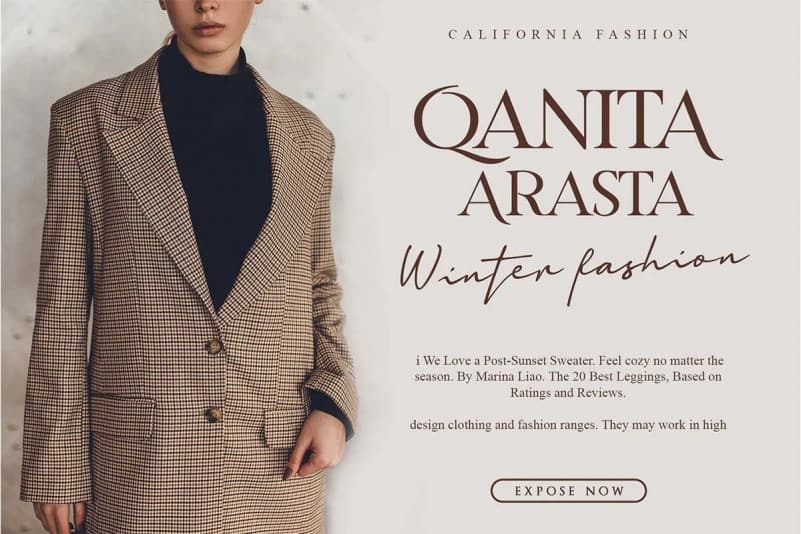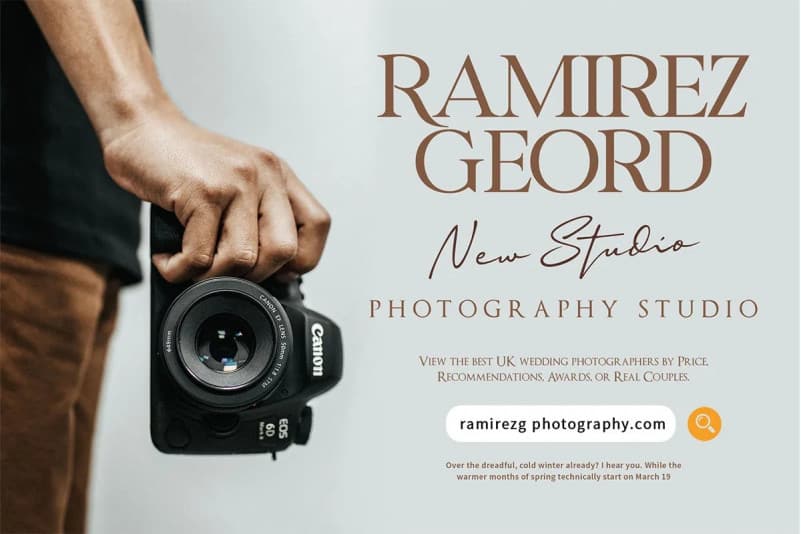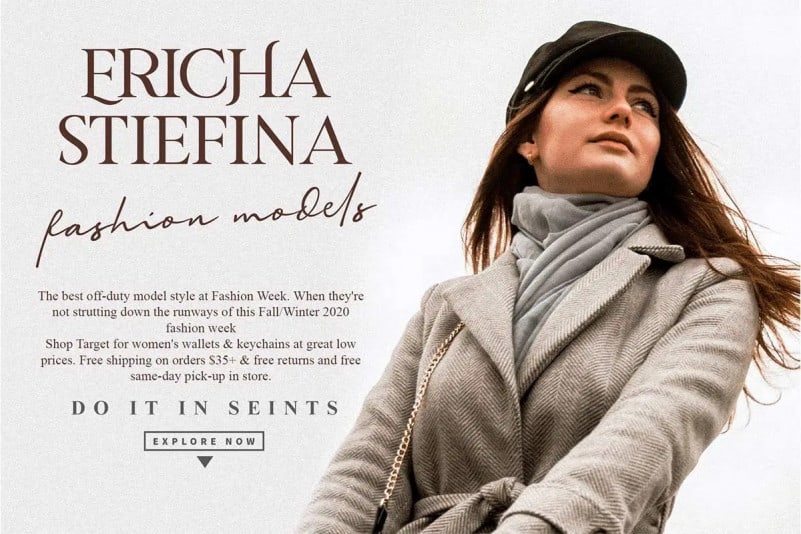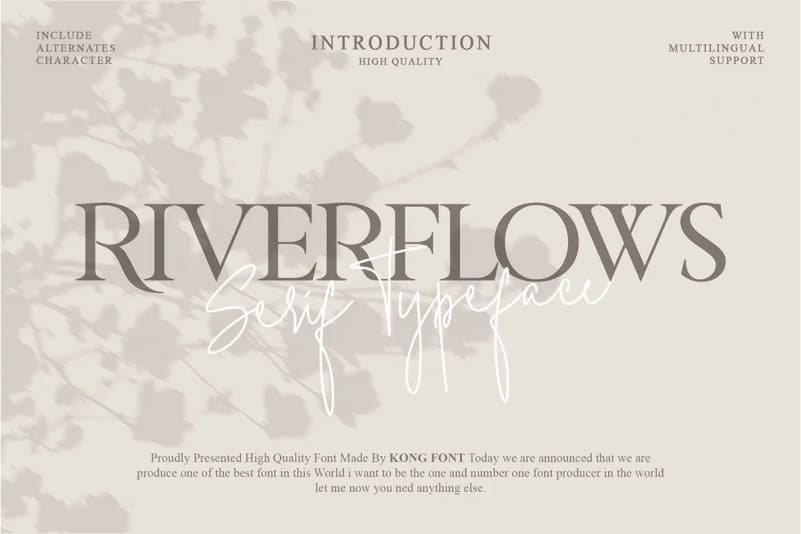
Introducing Riverflows Serif Font is inspired by urban or freestyle artworks. With casual or marker style and lot of stylistic alternates you can create realistic headers. It’s a font that can be used with vintage, simple and modern styles. Comes also with swashes font. It works beautifully for personal branding, advertising or creative headers. Looks good also with retro style typography or branding. It is very suitable for logos, posters, t shirts and more.